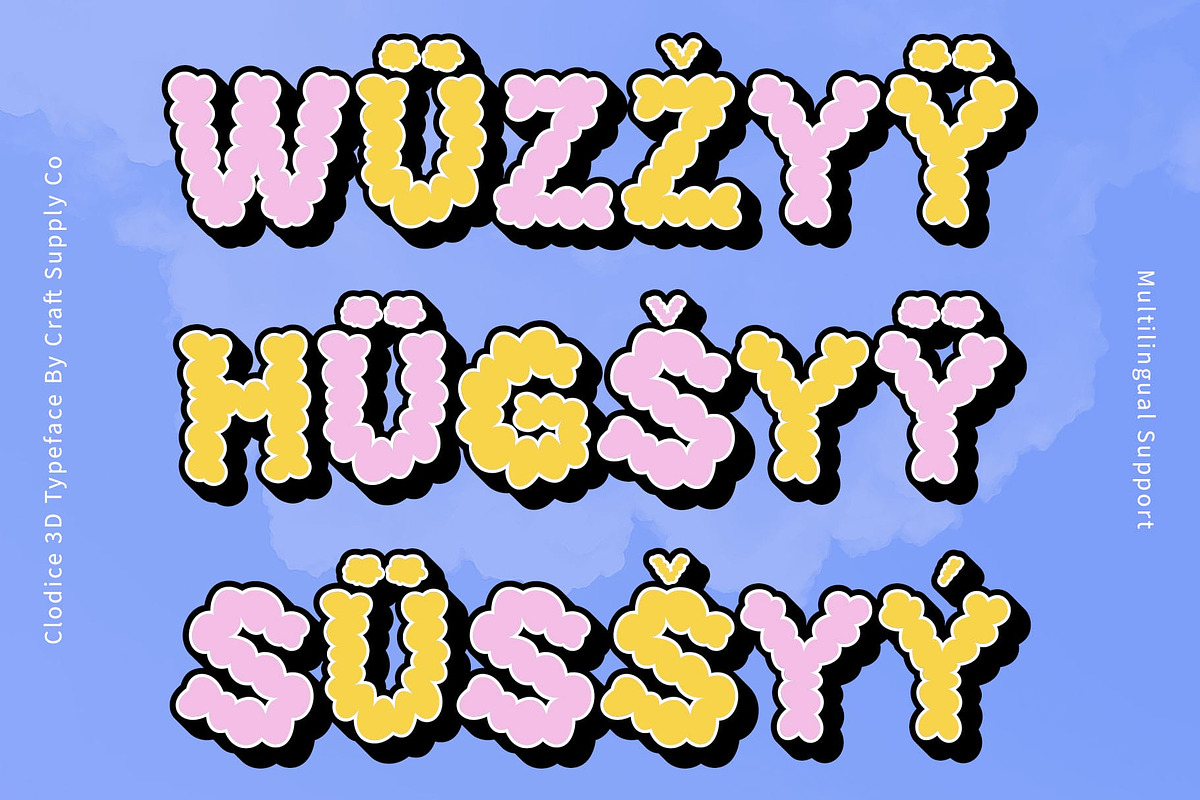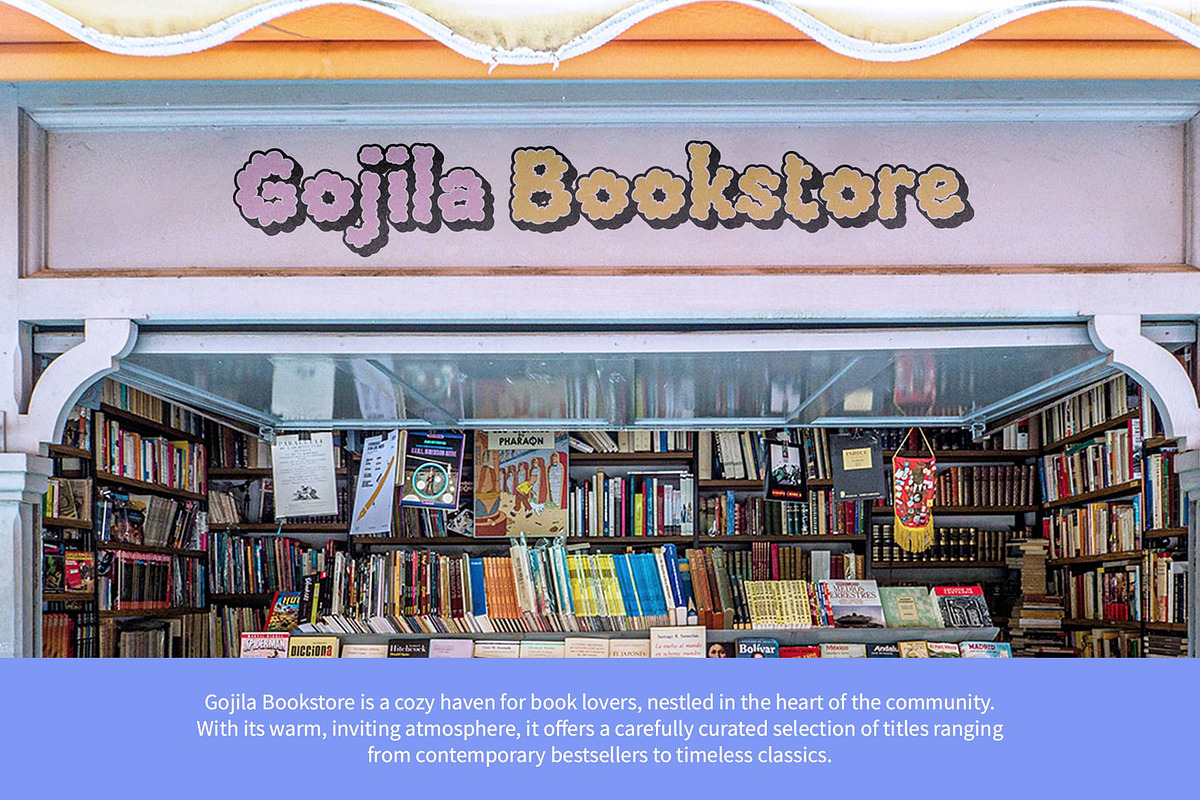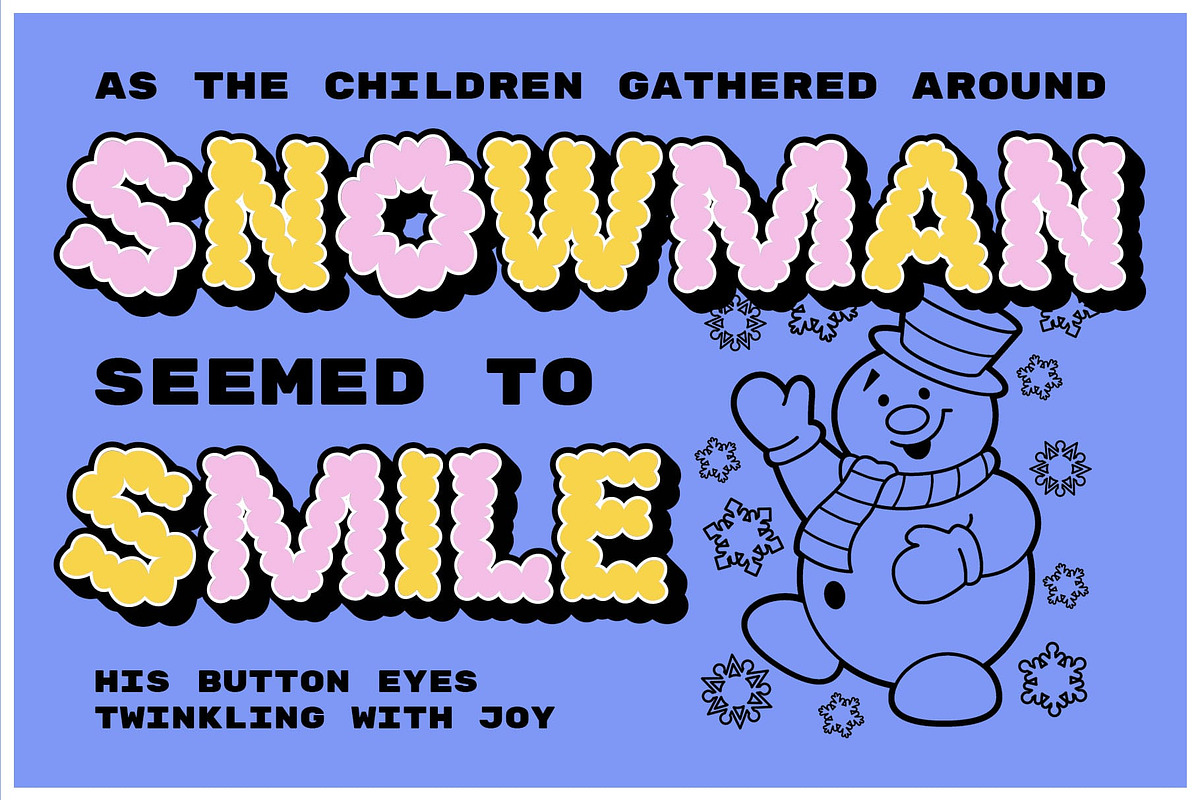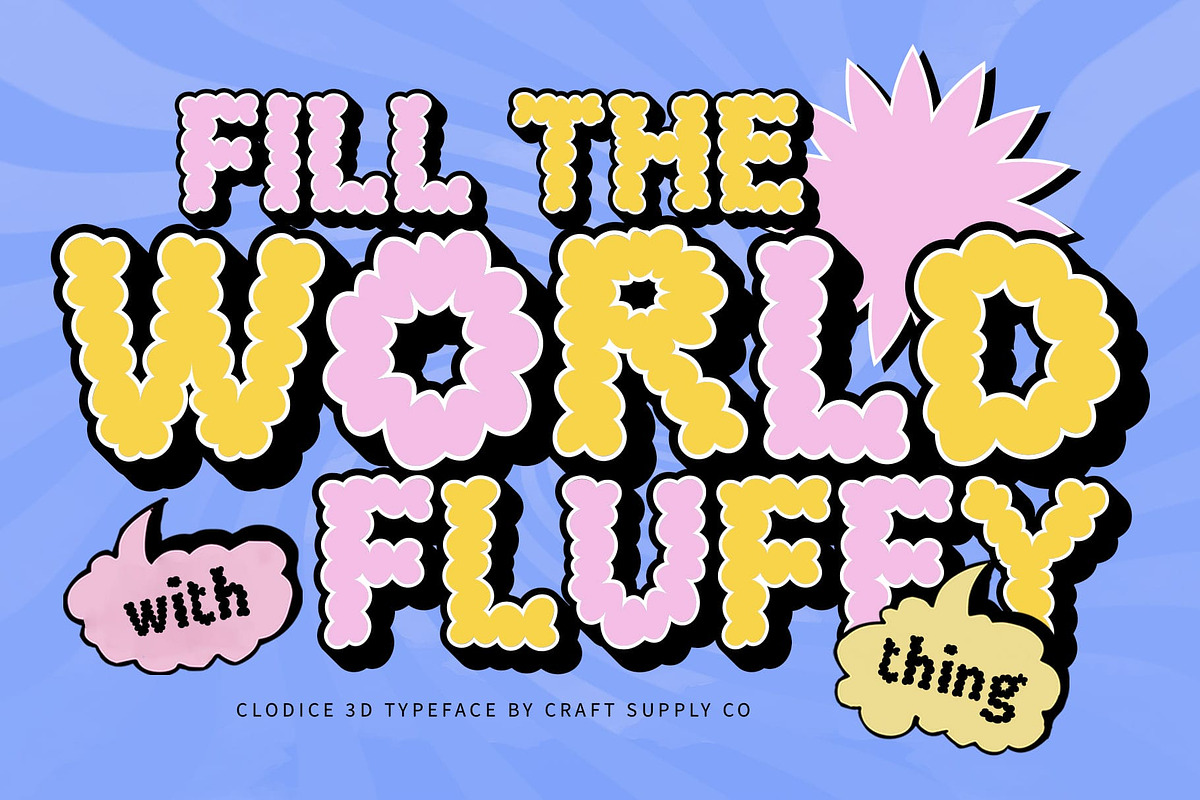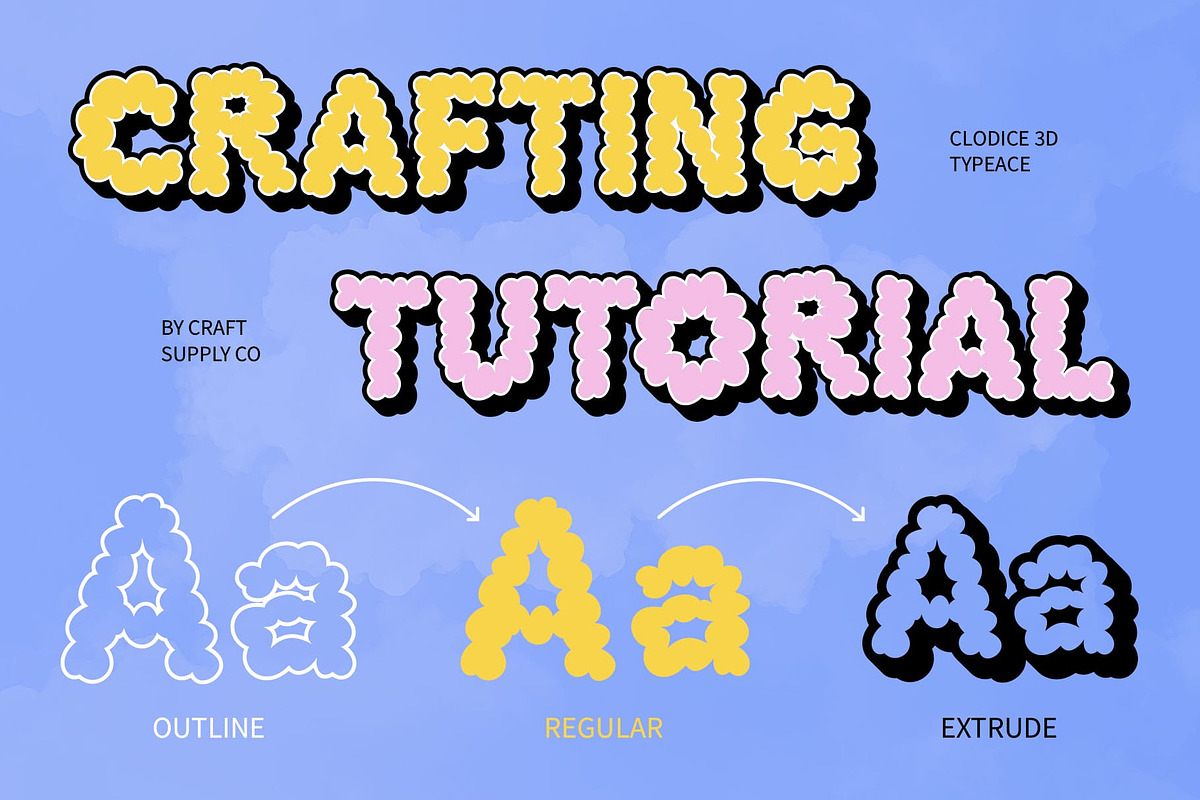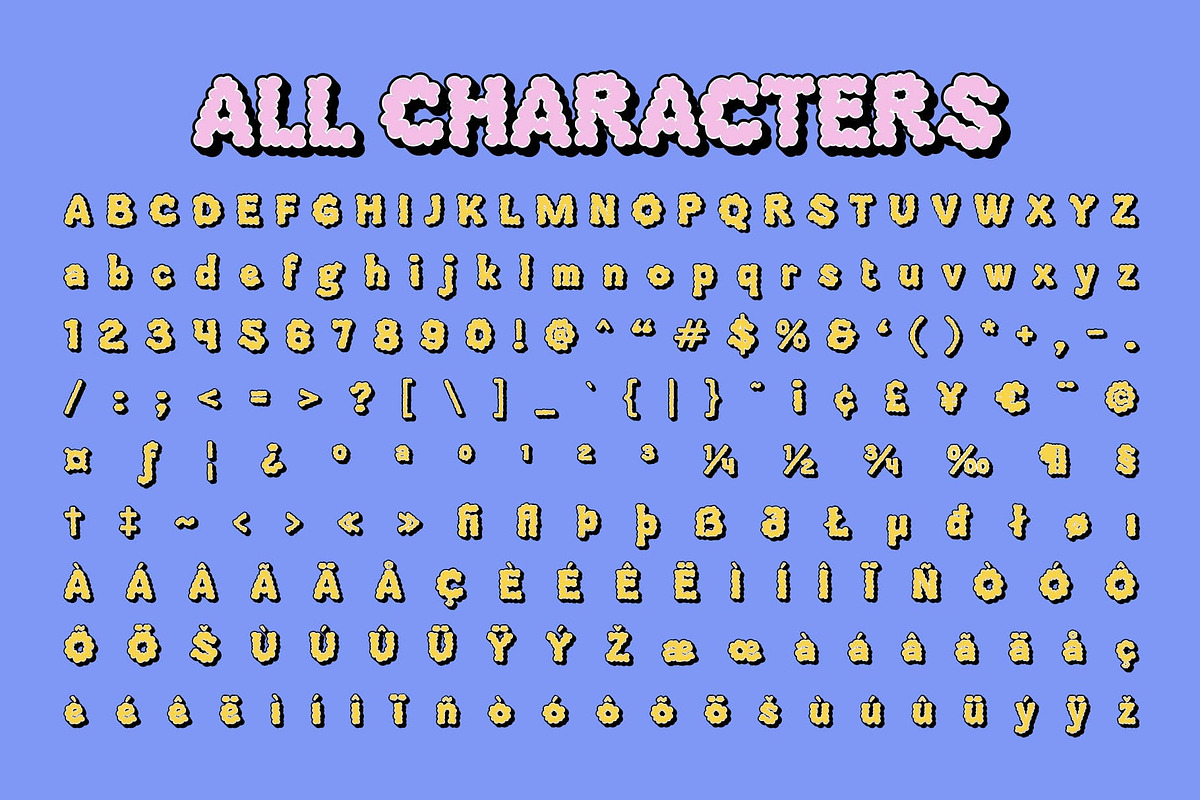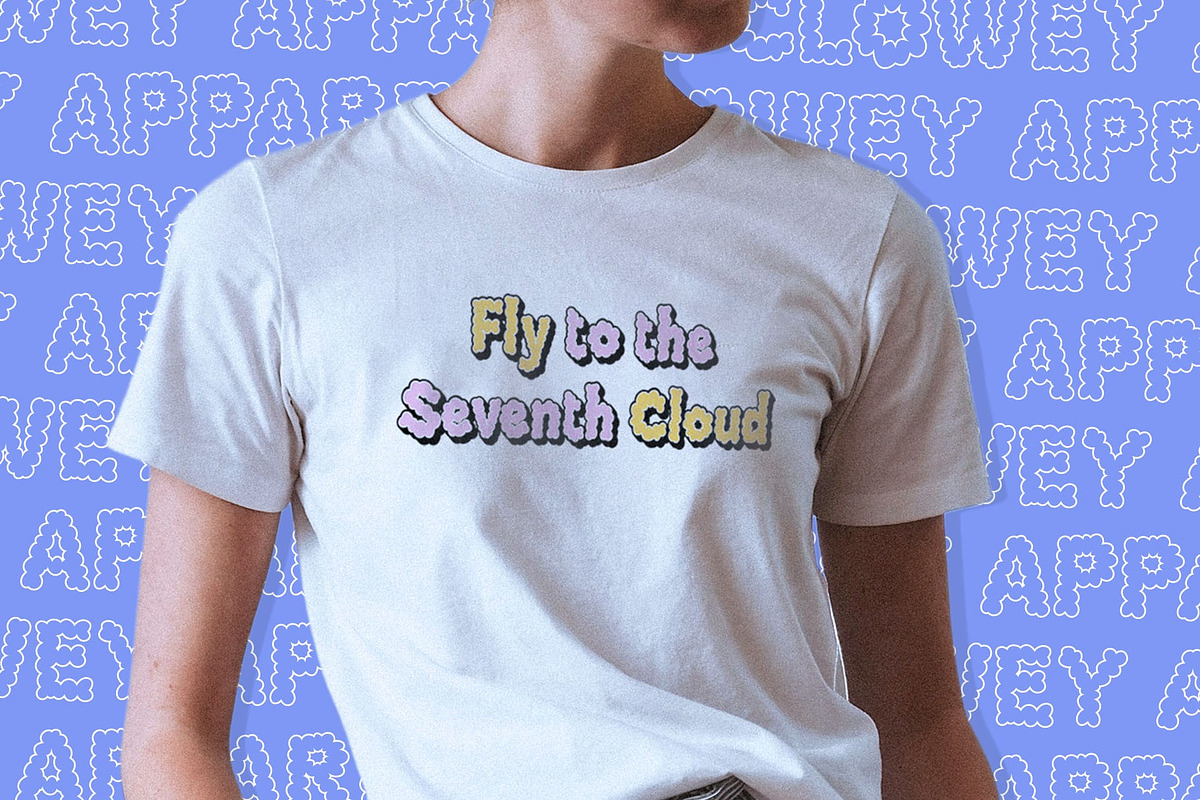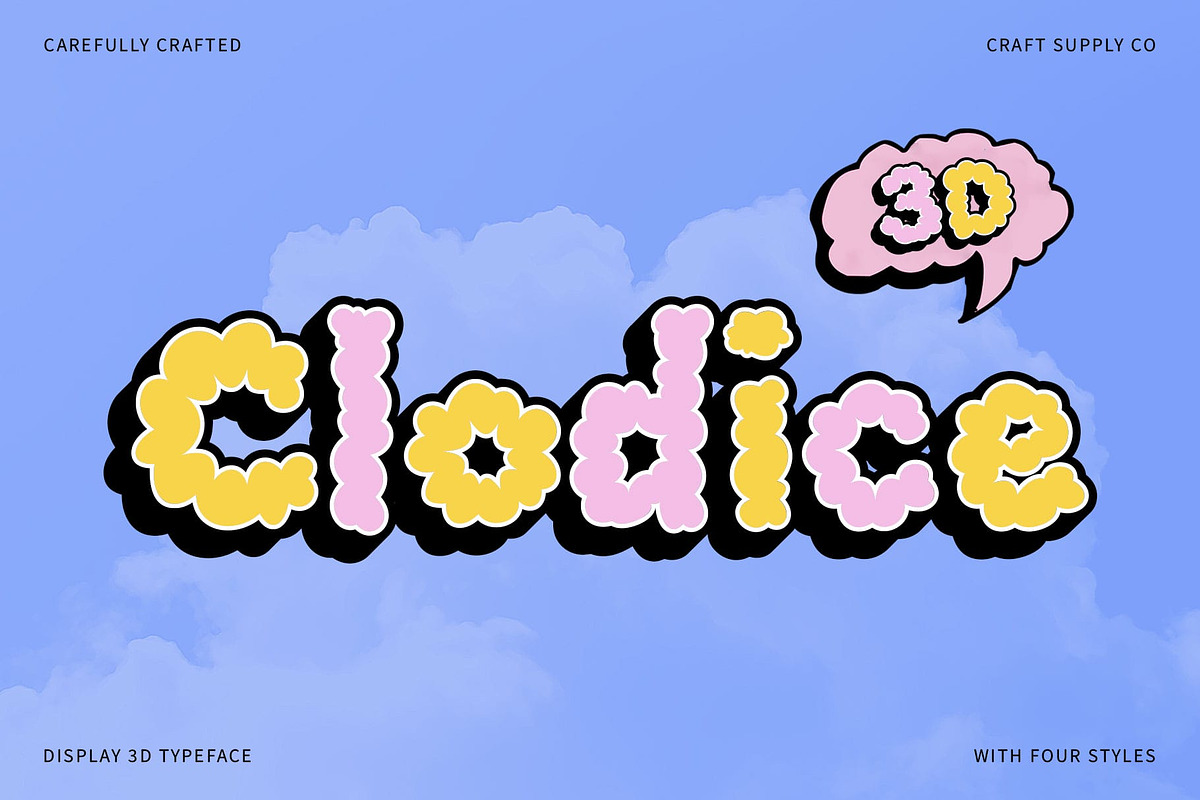
Clodice 3D
Clodice 3D Font: A Playful Font Full of Character
Cheerful Bubble Display Font Clodice 3D is a delightful bubble display font that exudes a cute, funky, and cheerful vibe. Its round and plump letterforms are designed to convey friendliness and energy, making it an excellent choice for any project that aims to evoke a sense of joy and playfulness. This font effortlessly captures attention with its lively personality, perfect for designs that need to stand out.
Dynamic 3D Effect for Added Depth The lively 3D effect enhances Clodice’s already engaging character, adding depth and visual dimension that makes each letter pop off the page. This playful three-dimensional quality not only increases the font’s vibrancy but also makes it more eye-catching, ensuring that your message resonates with your audience.
Ideal for Youthful and Creative Applications Clodice 3D is perfect for a variety of creative projects aimed at children and the young-at-heart. From event posters and playful branding to children’s product packaging, this font creates a joyful atmosphere that speaks to its audience. Its fun and funky design invites interaction and engagement, making it ideal for any context where positivity is key.
- Clodice Regular
- Clodice Outline
- Clodice Extrude Right
- Clodice Extrude Left